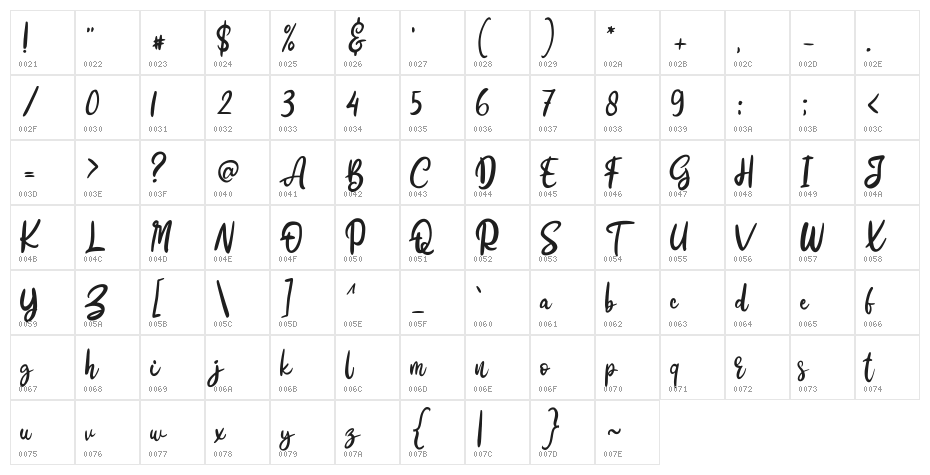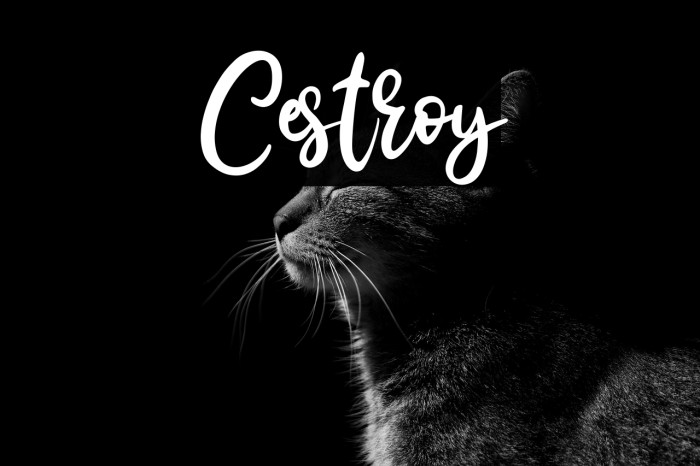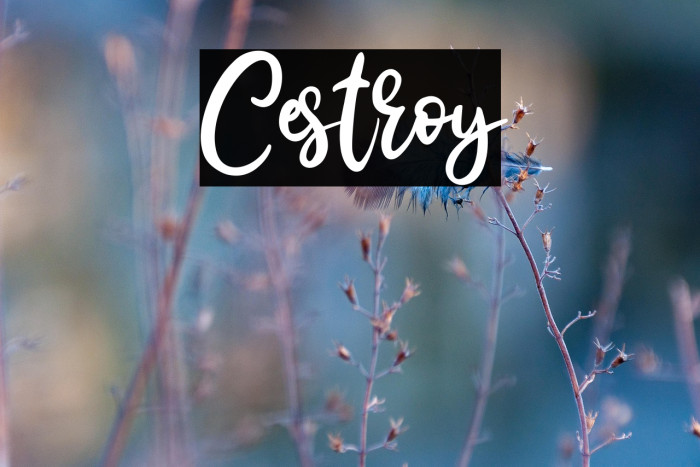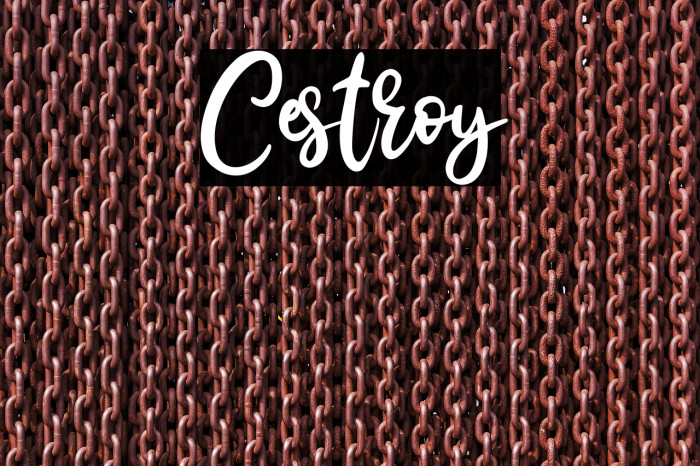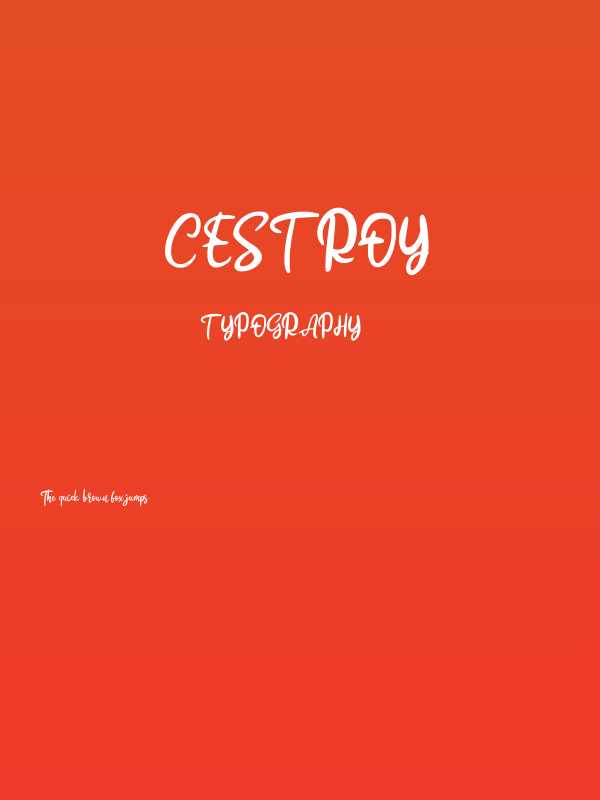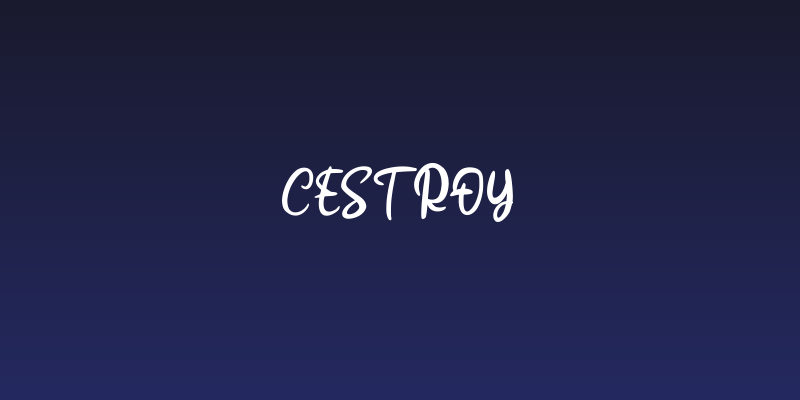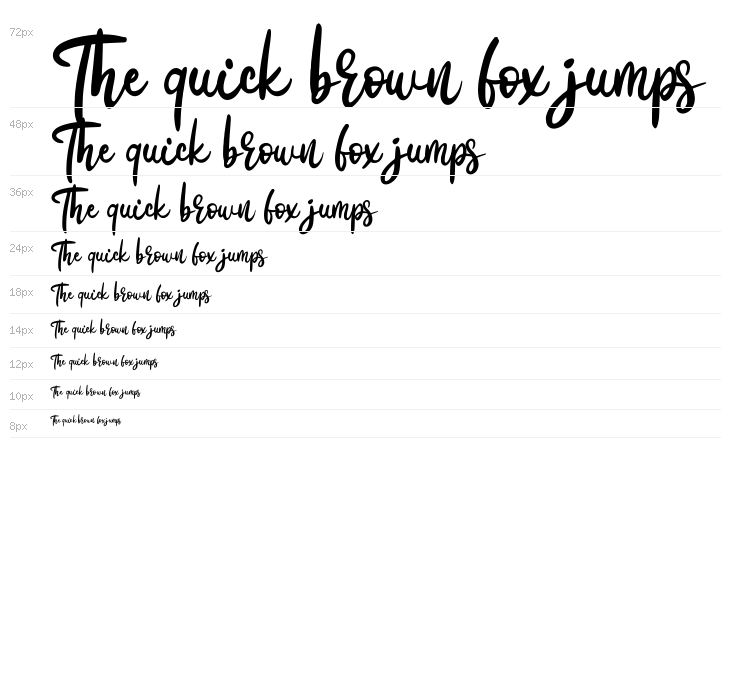
Cestroy Font
Cestroy Description
This font features a lively and dynamic script style with a handwritten appearance. The letters are connected, creating a fluid and continuous look, which adds to its casual and friendly vibe. The strokes are bold and expressive, with varying thickness that gives it a natural, hand-drawn feel. The uppercase letters have a playful and slightly exaggerated form, while the lowercase letters maintain a consistent flow. The numerals and special characters complement the overall style, maintaining the same energetic and informal aesthetic.
| Use Case | Logos, Headlines, Invitations |
| Proposed Projects | Ideal for projects that require a personal touch, such as greeting cards, invitations, branding, and social media graphics. |